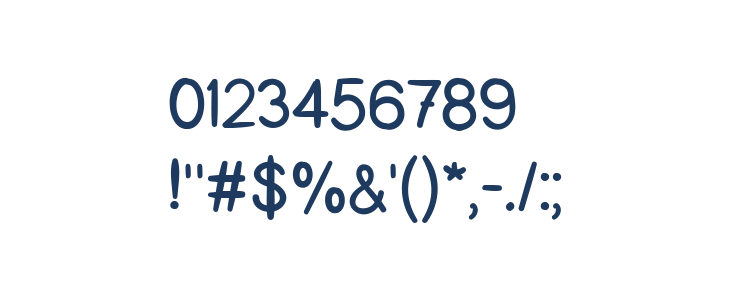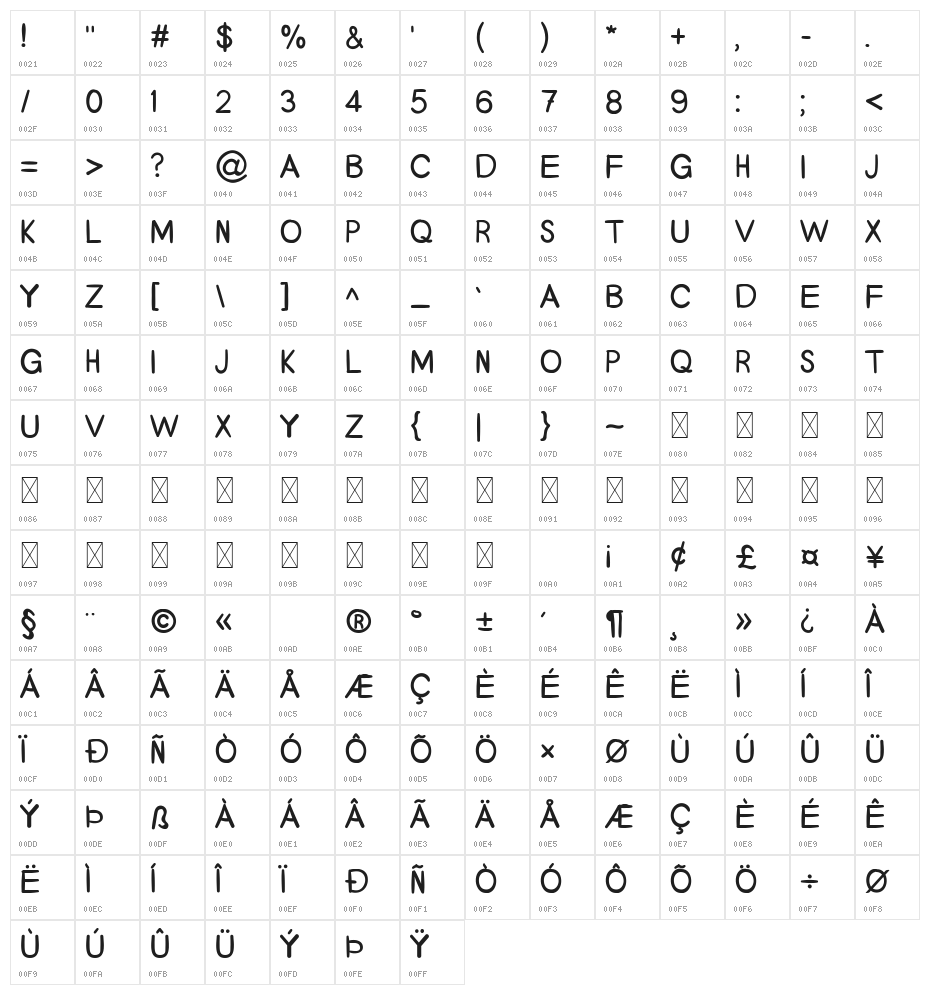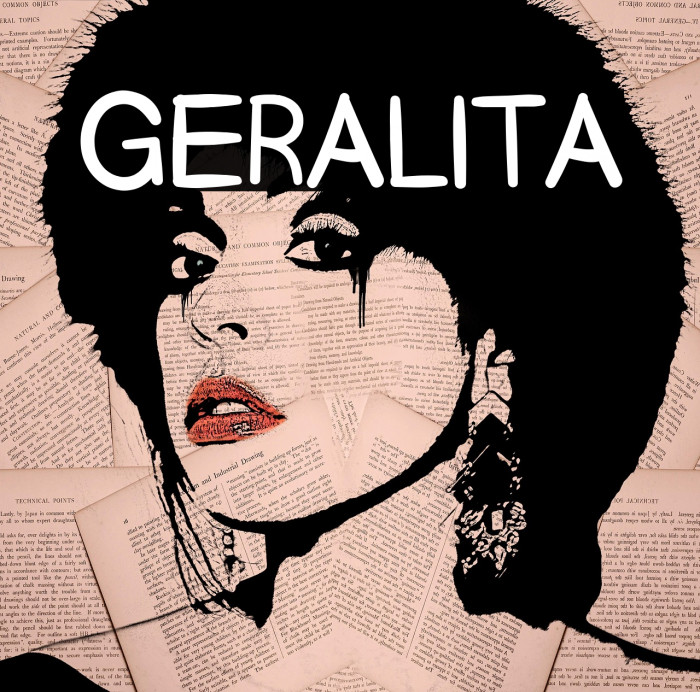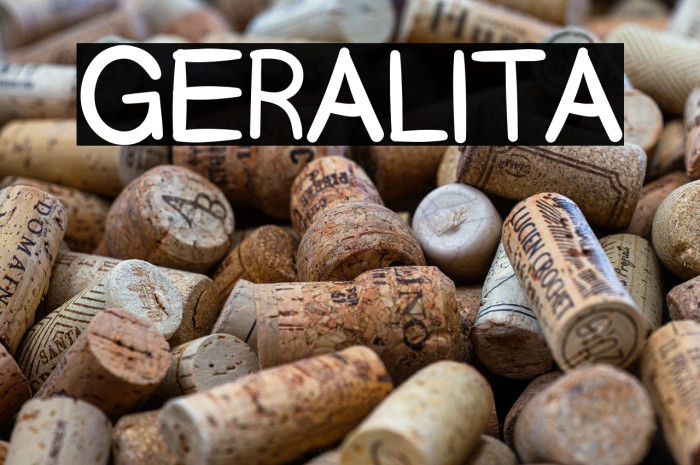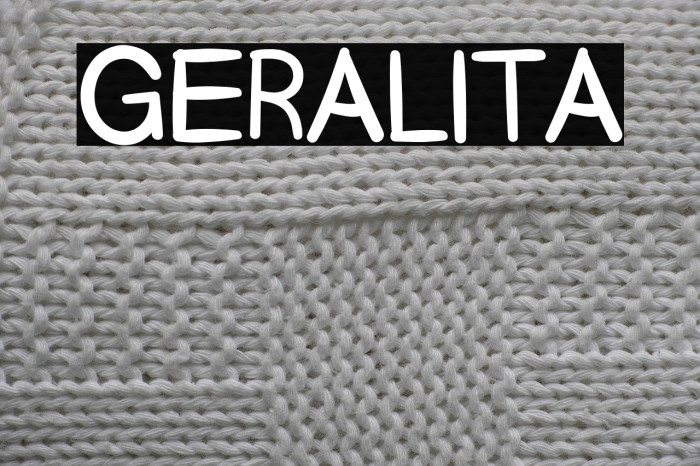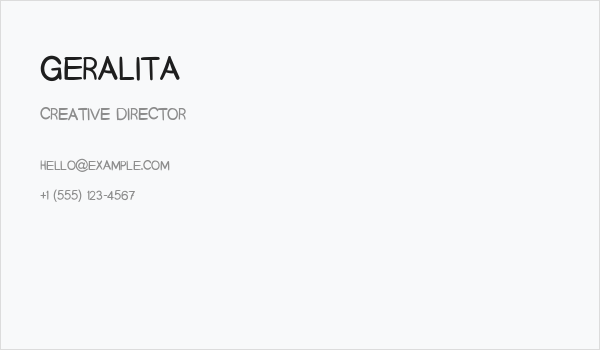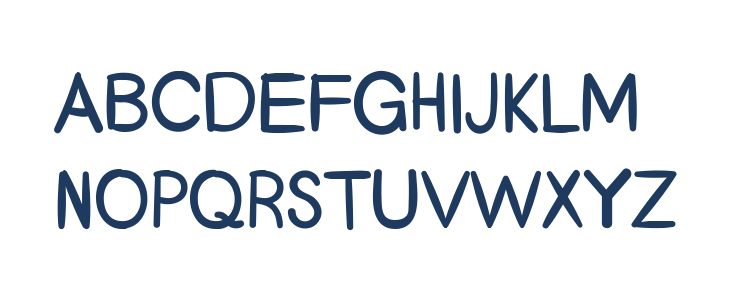
Geralita Font
Geralita Description
This playful and informal font features a handwritten style with rounded edges and a casual appearance. The letters are slightly irregular, giving it a friendly and approachable feel. The uppercase and lowercase characters maintain a consistent style, with smooth curves and a moderate weight that ensures readability. Numbers and special characters are designed to match the overall aesthetic, making them suitable for various applications. The font's whimsical nature makes it ideal for creative projects, children's materials, and any design that requires a touch of personality and warmth.
| Use Case | Headlines, Informal text, Creative designs |
| Proposed Projects | Ideal for children's books, greeting cards, playful branding, and creative projects. |